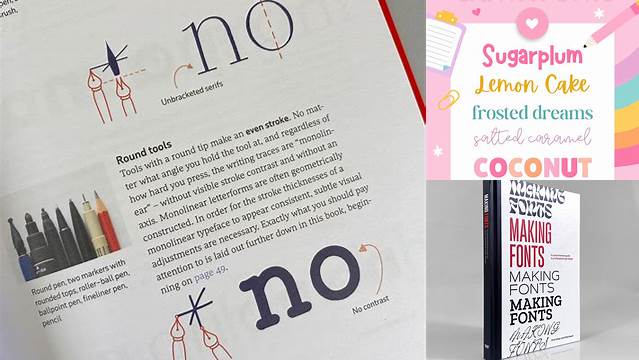
Cute Keyboard Fonts: The Ultimate Guide
So, you want to jazz up your keyboard with some adorable fonts, huh? Well, you've come to the right place! In this guide, we'll dive into all the cool ways you can get those cute fonts popping up whenever you type. Whether you're on your phone, tablet, or computer, there's a method for you. Let's get started!
1. Understanding Font Options for Your Keyboard
Okay, first things first. Before we jump into how to get those cute fonts, let's talk about your options. When we say "cute fonts," what do we even mean? Are we talking about handwritten styles, bubbly letters, or something totally unique? Knowing what you want will help you find the right solution. Think about the aesthetic you're going for. Do you want something playful and whimsical, or something more elegant and understated? Also, keep in mind where you'll be using these fonts. A font that looks great on Instagram might not be ideal for writing a professional email.
Different devices and apps handle fonts in different ways. For example, some apps allow you to use custom fonts directly, while others require you to use a font generator or keyboard app. Understanding these limitations will save you a lot of frustration down the road. Basically, it's all about knowing what's possible and what's not. So, before you get too excited about a particular font, make sure it's actually compatible with your device and the apps you use most often.
2. Using Font Generator Apps
One of the easiest ways to get cute fonts on your keyboard is by using font generator apps. These apps let you type in your text and then transform it into a variety of different font styles. The cool thing about font generator apps is that they are incredibly user-friendly. You simply type your message, scroll through the available fonts, and copy the one you like. Then, you can paste it into your social media posts, messages, or anywhere else you want to use it. Some popular font generator apps include LingoJam, Cool Fonts, and FontGet. These apps offer a wide range of font styles, from basic to super creative, so you're sure to find something that suits your taste.
However, there's a catch. Font generator apps don't actually change your keyboard's default font. Instead, they create text in a specific font that you can copy and paste. This means you can't just type directly in your cute font; you have to go through the app every time. It might seem like an extra step, but for many people, it's a small price to pay for having access to a wide variety of fun fonts. Plus, these apps are often free, so you can experiment with different styles without spending any money. Just be aware of the limitations and make sure it's a workflow that works for you.
3. Installing Custom Keyboards with Fonts
Another way to get cute fonts is by installing a custom keyboard app that comes with built-in fonts. These keyboard apps replace your device's default keyboard and offer a variety of customization options, including different fonts, themes, and layouts. Gboard, SwiftKey, and FancyKey are a few examples of popular custom keyboard apps that offer font options. Setting up a custom keyboard is usually pretty straightforward. You download the app from the App Store or Google Play Store, follow the on-screen instructions to enable it in your device's settings, and then choose it as your default keyboard. Once it's set up, you can usually access the font options within the keyboard's settings menu.
Keep in mind that using a custom keyboard app means that all your typing will go through that app. This raises some privacy concerns, as the app could potentially track your keystrokes. Make sure to choose a reputable keyboard app from a trusted developer, and always read the privacy policy before installing. Some keyboard apps also offer premium features, such as additional fonts or themes, that require a subscription or one-time purchase. If you're serious about having a lot of font options, it might be worth considering a paid keyboard app.
4. Using Unicode Characters for Font Variety
Did you know you can use Unicode characters to create different font styles? Unicode is a universal character encoding standard that includes a vast library of symbols and characters, including some that resemble different fonts. By using these Unicode characters, you can create text that looks like it's in a fancy font without actually changing your keyboard's font. There are websites and apps that provide lists of Unicode characters that you can copy and paste into your text. These characters include things like bold, italic, script, and even some decorative symbols. To use Unicode characters, simply find the ones you want to use, copy them, and paste them into your message. You can mix and match different characters to create a unique look.
The advantage of using Unicode characters is that they are widely supported across different devices and platforms. This means that your fancy text will usually display correctly, no matter where you post it. However, there are some limitations. Unicode fonts are often not as polished or refined as true fonts, and they may not look as good on all devices. Also, some Unicode characters may not be supported on all platforms, so you might see boxes or question marks instead of the intended character. Despite these limitations, using Unicode characters can be a fun and easy way to add some flair to your text.
5. Font Customization on Social Media Platforms
Many social media platforms offer built-in font customization options that allow you to change the appearance of your text. These options might include different font styles, sizes, colors, and formatting options. For example, Instagram allows you to choose from a few different fonts for your stories, and Twitter allows you to format your tweets with bold and italic text. To access these font customization options, simply look for the formatting tools within the app or website you're using. These tools are usually located in the text editor or settings menu. The specific options available will vary depending on the platform.
Using the built-in font customization options on social media platforms is a great way to make your posts stand out and express your personality. You can use different fonts to highlight important information, add visual interest, or create a cohesive aesthetic for your profile. However, keep in mind that the font options available on social media platforms are often limited. You might not be able to use your favorite custom font, or you might be restricted to a small selection of pre-designed fonts. Despite these limitations, experimenting with the available font options can be a fun and easy way to enhance your social media presence.
6. Creating Your Own Fonts
If you're feeling creative, you can even create your own fonts! There are many font design software programs available that allow you to draw your own letters and turn them into a usable font file. FontLab Studio, Glyphs, and BirdFont are a few examples of popular font design software. Creating your own font can be a time-consuming process, but it can also be incredibly rewarding. You have complete control over every aspect of the font, from the shape of the letters to the spacing between them. This allows you to create a font that is truly unique and reflects your personal style.
Once you've created your font, you can install it on your computer and use it in any application that supports custom fonts. You can also share your font with others, or even sell it online. However, creating a high-quality font requires a lot of skill and attention to detail. You'll need to learn about typography principles, such as kerning, leading, and tracking. You'll also need to test your font thoroughly to make sure it looks good in different sizes and weights. If you're serious about font design, consider taking a typography course or reading some books on the subject.
7. Font Licensing and Usage Rights
Before you start using fonts in your projects, it's important to understand font licensing and usage rights. Fonts are intellectual property, and they are protected by copyright law. This means that you need to have a license to use a font, just like you need a license to use a software program. Font licenses specify how you can use the font, such as whether you can use it for commercial purposes, how many users can use it, and whether you can embed it in documents or websites. There are different types of font licenses, ranging from free licenses to expensive commercial licenses. Make sure to read the license agreement carefully before using a font to ensure that you are complying with the terms.
Using a font without a proper license can result in legal consequences, such as fines or lawsuits. If you're using fonts for commercial projects, such as logos, websites, or marketing materials, it's especially important to make sure you have the correct license. There are many websites that offer free fonts, but be careful when downloading fonts from untrusted sources. Some free fonts may be poorly designed or contain malware. It's always best to download fonts from reputable foundries or font marketplaces.
8. Font Pairing Tips for Visual Harmony
Choosing the right fonts can make a big difference in the overall look and feel of your design. But just as important as choosing individual fonts is pairing them together effectively. Font pairing is the art of combining two or more fonts that complement each other and create a visually harmonious design. When pairing fonts, look for fonts that have contrasting characteristics. For example, you might pair a bold, sans-serif font with a delicate, serif font. This creates visual interest and helps to separate different elements of your design.
Another tip is to use a limited number of fonts. Using too many fonts can make your design look cluttered and confusing. Stick to two or three fonts at most, and use them consistently throughout your design. You can also use different weights and styles of the same font family to create variation without introducing too many different fonts. There are many online resources that offer font pairing suggestions and inspiration. Experiment with different combinations to find what works best for your project.
9. Troubleshooting Font Display Issues
Sometimes, fonts don't display correctly, and you might see strange characters or missing letters. This can be frustrating, but there are usually ways to fix it. One common cause of font display issues is missing fonts. If you're opening a document or website that uses a font that is not installed on your computer, you might see a substitute font instead. To fix this, you need to install the missing font. You can usually find the font online and download it for free or purchase it from a font foundry. Another cause of font display issues is font corruption. If a font file is damaged, it might not display correctly. To fix this, try reinstalling the font.
Sometimes, font display issues can be caused by your browser or operating system. Make sure your browser and operating system are up to date, as updates often include bug fixes and improvements to font rendering. You can also try clearing your browser's cache and cookies, as this can sometimes resolve font display issues. If you're still having trouble, try disabling any font-related extensions or plugins in your browser. If all else fails, try contacting the font vendor or the software developer for assistance.
10. Accessibility Considerations for Font Choice
When choosing fonts, it's important to consider accessibility. Some fonts are easier to read than others, especially for people with visual impairments or learning disabilities. Choose fonts that are clear, legible, and easy to distinguish. Avoid fonts that are too decorative or stylized, as these can be difficult to read. Use a font size that is large enough for people to read comfortably. A good rule of thumb is to use a font size of at least 12 points for body text. Provide sufficient contrast between the text and the background. Black text on a white background is the most readable combination, but you can also use other color combinations that provide good contrast.
Avoid using color alone to convey information, as people with color blindness may not be able to distinguish between different colors. Use other visual cues, such as bolding, italics, or underlines, to emphasize important information. Make sure your website or document is compatible with screen readers, which are assistive technologies that read text aloud for people with visual impairments. Use semantic HTML tags to structure your content and provide alternative text for images. By following these accessibility guidelines, you can ensure that your content is readable and accessible to everyone.